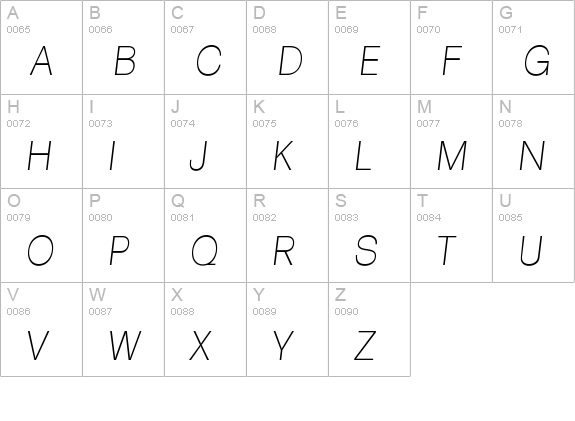
Formula-XlightIta font is a sleek and modern typeface that exudes elegance and sophistication. Its delicate and slender letterforms make it perfect for adding a touch of refinement to any design project. This font is ideal for creating stylish headlines, elegant invitations, or sophisticated branding materials. The best part about Formula-XlightIta font is that it is completely free to download at FontsMarket.com. Now you can access this beautiful typeface without any cost, making it a valuable addition to your font collection. Don't miss out on the opportunity to enhance your designs with this exquisite and versatile font. Download Formula-XlightIta today and elevate your creative projects to the next level.